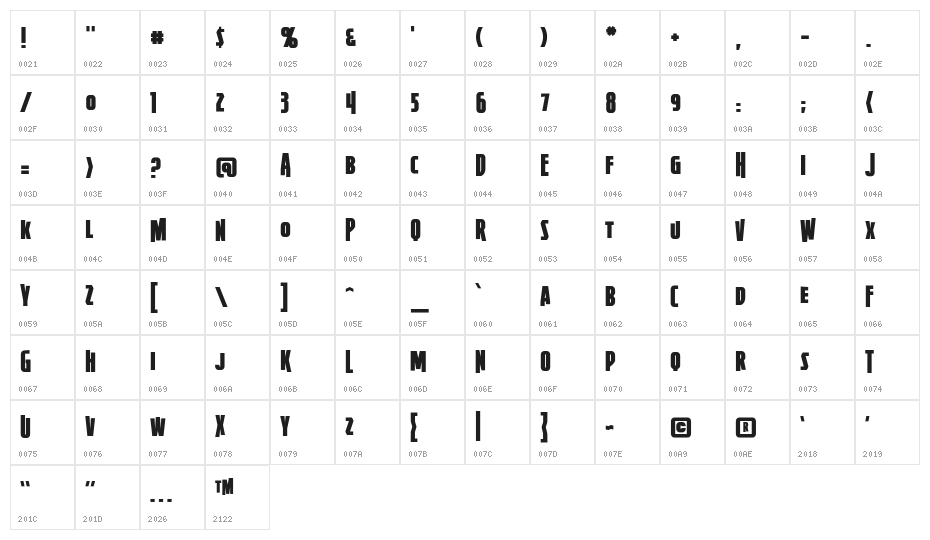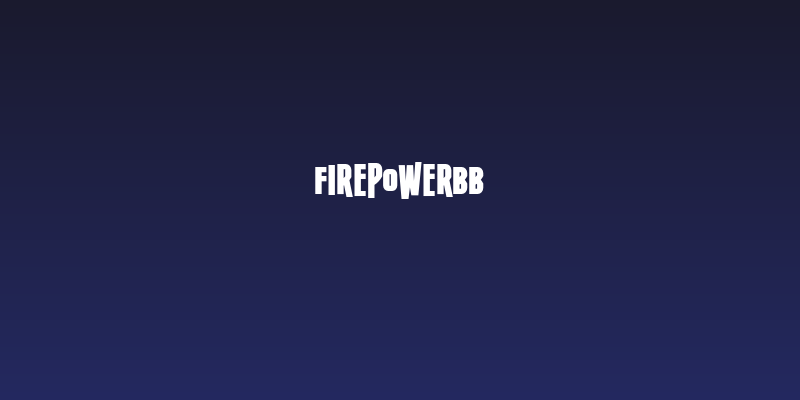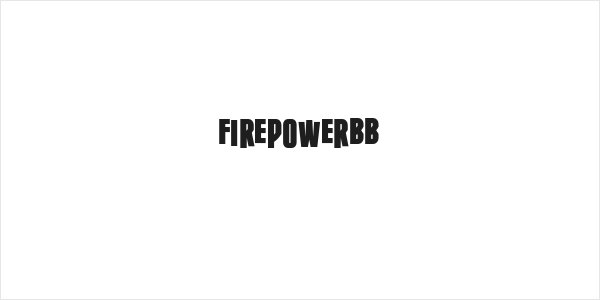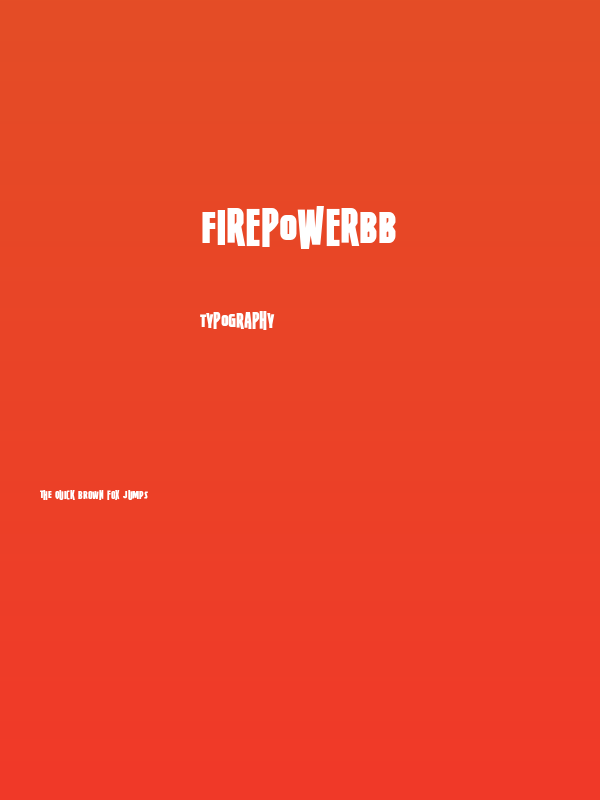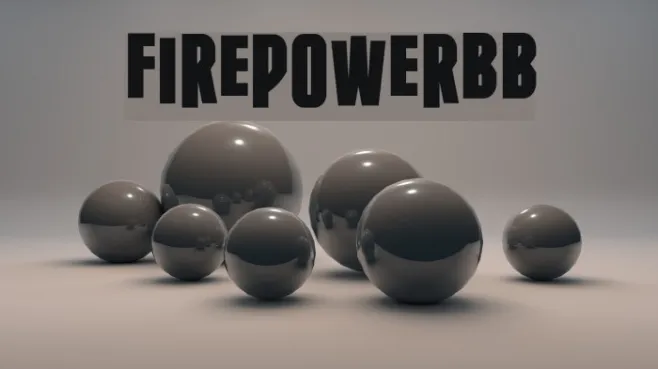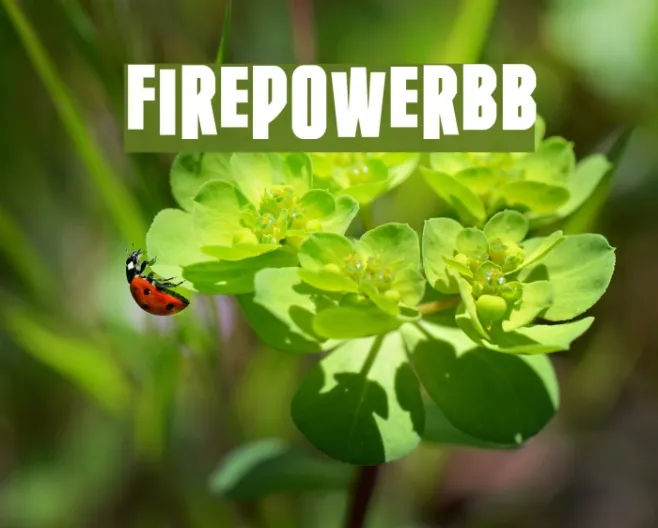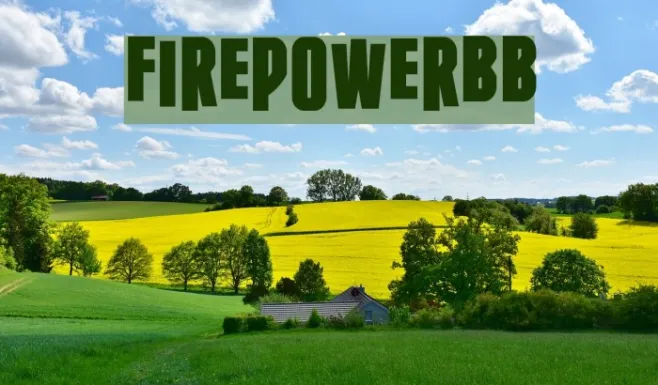
FirepowerBB Font
FirepowerBB Description
This font features a bold and impactful design, characterized by thick, solid strokes and a strong presence. The uppercase and lowercase letters are designed with a consistent weight, providing a cohesive look across the alphabet. The numerals and special characters maintain the same bold style, ensuring uniformity. The font's structure is slightly condensed, which enhances its boldness and makes it suitable for attention-grabbing headlines or titles. The overall style is modern and assertive, making it ideal for projects that require a strong visual impact.
| Proposed Projects | Ideal for posters, headlines, branding, and any design needing a bold statement. |